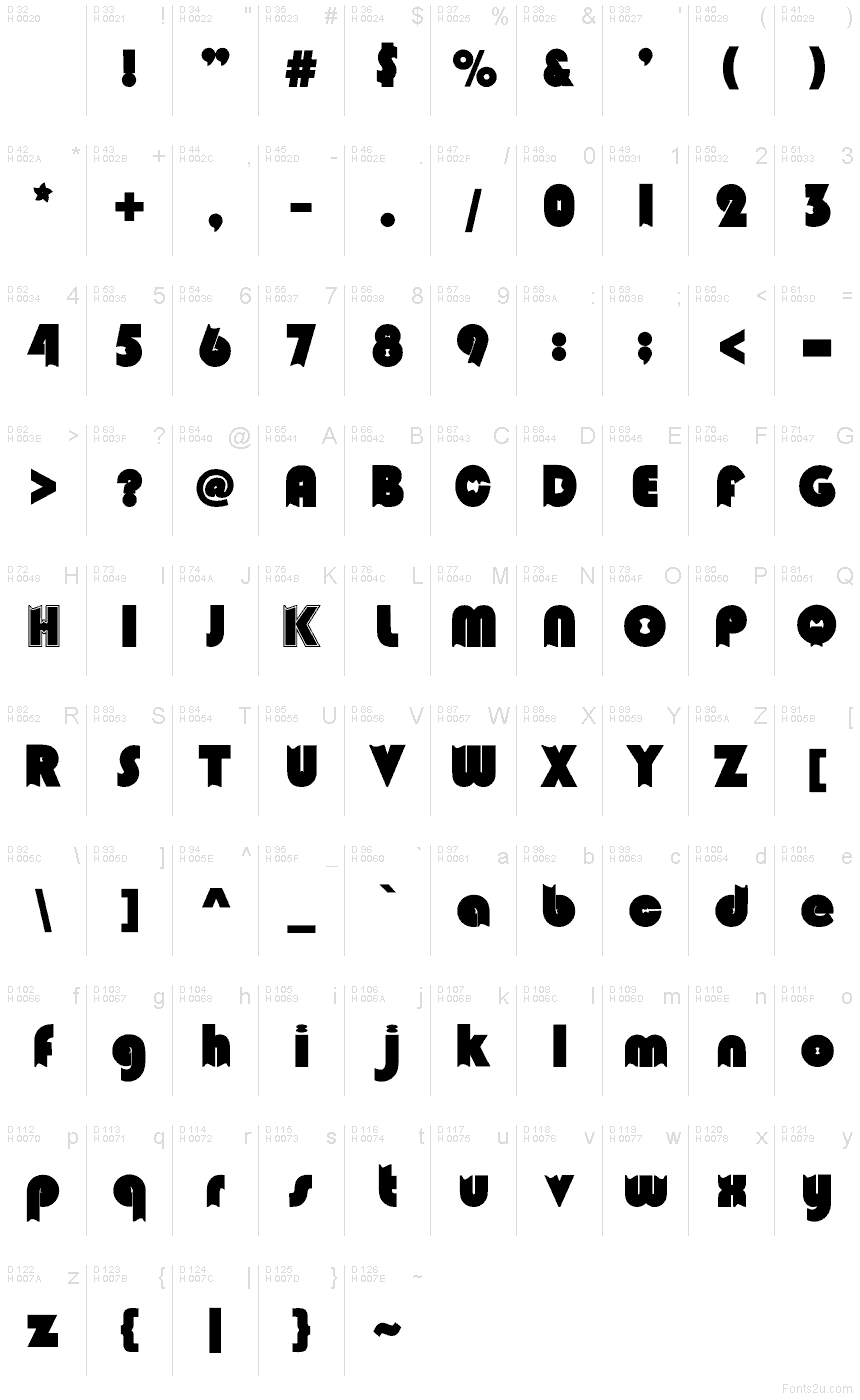
Maikel font by Giart Studios is a free groovy display typeface with letterforms that feel like they’ve been poured rather than drawn. Heavy, blocky shapes hug the baseline, while soft inner curves and playful notches keep everything from feeling rigid. The result is a bold, almost chunky silhouette that reads loud and clear, but still has that laid-back, retro bounce baked in.
Using Maikel, big sizes are where the magic happens-let it shout on posters, logos, packaging, social media graphics, album covers, or statement merch. This free font thrives when you give it room to breathe and plenty of color to play with. For supporting text, pair Maikel with a clean, narrow sans serif to balance its wide, inky presence.